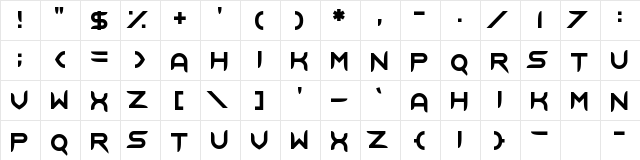
Xide Regular
| Designer | NAL |
Design Context for Xide Typeface
Xide takes a measured approach to typography — its balanced proportions and neutral character make it a reliable workhorse for both digital and print work.